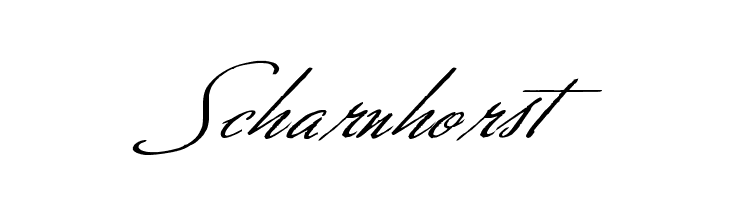
Decorative font with ancient classical head illustrations.
A lively script font with flowing, cursive strokes and elegant connections.
A lively and dynamic cursive font with elegant loops and curves.
A playful, italicized font with smooth, fluid strokes and a casual vibe.
A playful, casual handwritten font with flowing, irregular strokes.
A whimsical doodle font with playful, hand-drawn elements and a casual, sketch-like style.
A bold, condensed font with a rugged, hand-drawn style.
A graceful script font with flowing, cursive strokes and a classic handwritten style.
Elegant serif font with italic slant and clear Cyrillic characters.
A playful, bold, and hand-drawn font with a whimsical and energetic style.
设计师偏爱 Ancient Heads, Jalisco Script Demo, Sandra Belhock, Manga speak 2 Italic and Pea Bonnie Script,因为其造型干净、适用范围广—— 从品牌识别到落地页、海报都能胜任。